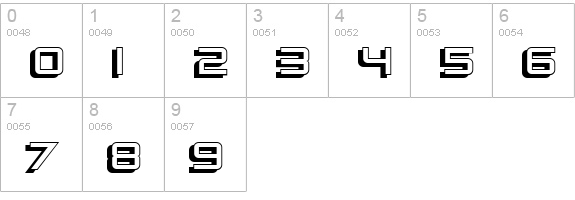
VentureShadow Font Details
Introducing VentureShadow, a dynamic and captivating font that will bring your designs to life. This font exudes a sense of adventure, with its bold and edgy letterforms that create a striking visual impact. With VentureShadow, your projects will stand out from the crowd and make a lasting impression. What sets VentureShadow apart is not only its unique design, but also the fact that it is available for free. Yes, you read that right - this amazing font can be yours without spending a dime. We believe in providing accessible and high-quality resources to designers, and VentureShadow perfectly embodies that ethos. Downloading VentureShadow is quick and effortless. Simply visit FontsMarket.com, where you'll find a vast selection of fonts, including this gem. With just a few clicks, you can have VentureShadow in your design arsenal, ready to elevate your creations to new heights. Whether you're working on a logo, poster, website, or any other design project, VentureShadow will add a touch of excitement and sophistication. Its sleek and modern aesthetic, combined with its versatility, makes it suitable for a wide range of applications. From adventurous outdoor brands to tech startups, VentureShadow adapts effortlessly to any visual identity. Designed with meticulous attention to detail, VentureShadow ensures legibility and readability while maintaining its distinctive character. Every curve and stroke is crafted with precision, resulting in a font that is both visually stunning and highly functional. Don't miss out on this extraordinary opportunity to enhance your designs with VentureShadow. Download it for free at FontsMarket.com and watch as your creations come alive with energy and style. Unleash your creativity and let VentureShadow be your secret weapon in crafting unforgettable designs.